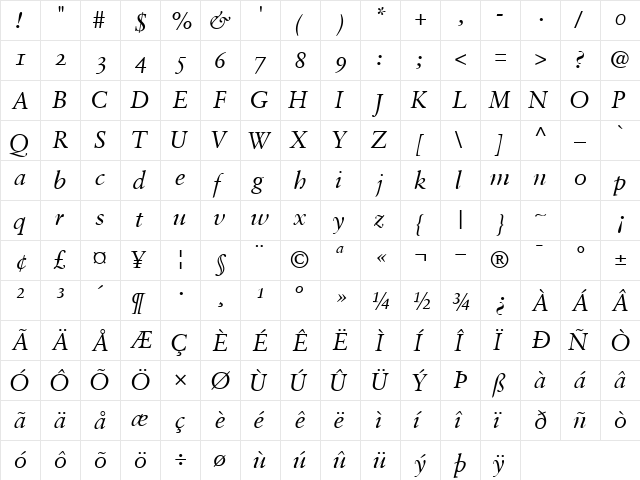
GaramondRetrospectiveOSSSK Italic
Design Context for GaramondRetrospectiveOSSSK Typeface
GaramondRetrospectiveOSSSK wears its vintage influences proudly, with letterforms that recall mid-century signage, classic packaging, and nostalgia-driven design. The slanted form adds forward momentum and visual energy.
Font Pairing: Combine GaramondRetrospectiveOSSSK with a simple slab or neutral sans — period-accurate companions reinforce the vintage feel without competing for attention.
Pro Tip: Lean into GaramondRetrospectiveOSSSK's period character by pairing it with aged paper textures, muted colour palettes, and vintage illustration styles.